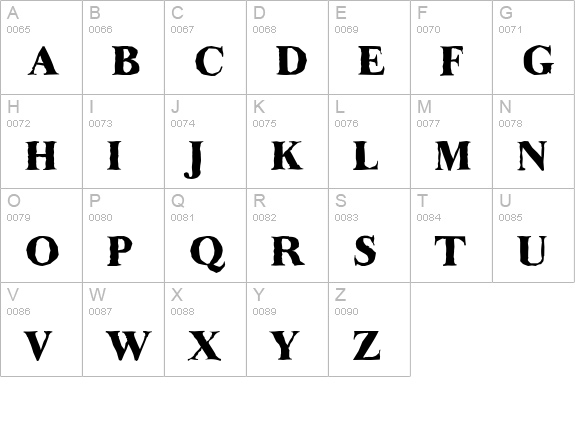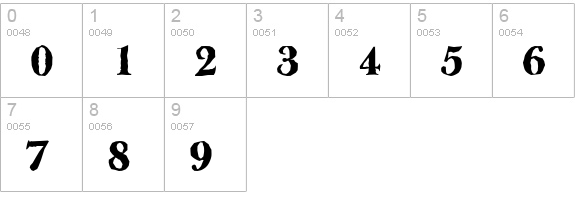
BaskerOldAntique-Heavy-Regular Font Details
BaskerOldAntique-Heavy-Regular is a heavy, high-impact variant in the BaskerOldAntique typeface family \xE2\x80\x94 well suited to high-impact headlines, posters, and display advertising.
BaskerOldAntique-Heavy-Regular font is a timeless and classic typeface that exudes elegance and sophistication. Its intricate details and vintage charm make it perfect for adding a touch of nostalgia to any design project. This font is versatile and can be used for a variety of purposes, from invitations to branding and packaging. The BaskerOldAntique-Heavy-Regular font is available for free download at FontsMarket.com, making it accessible to all designers looking to enhance their creations with a touch of old-world charm. With its bold and distinctive letterforms, this font is sure to make a statement and leave a lasting impression on your audience. Add a touch of history and elegance to your designs with the BaskerOldAntique-Heavy-Regular font today.